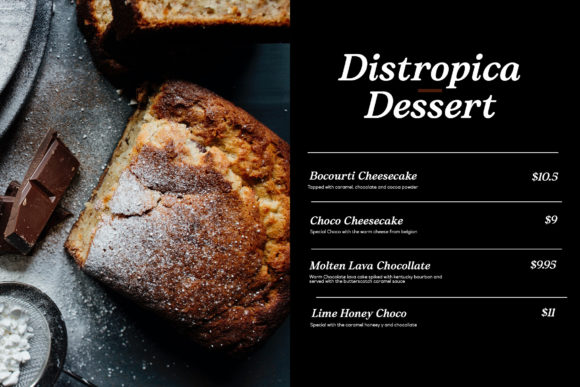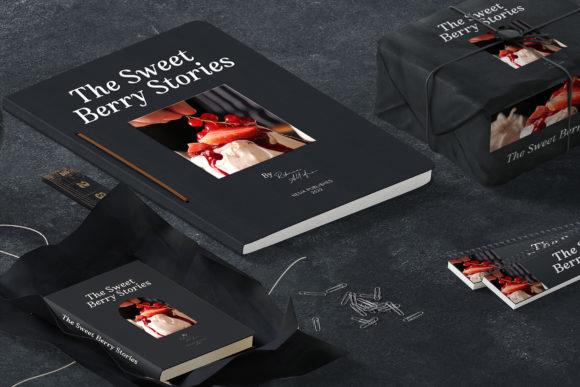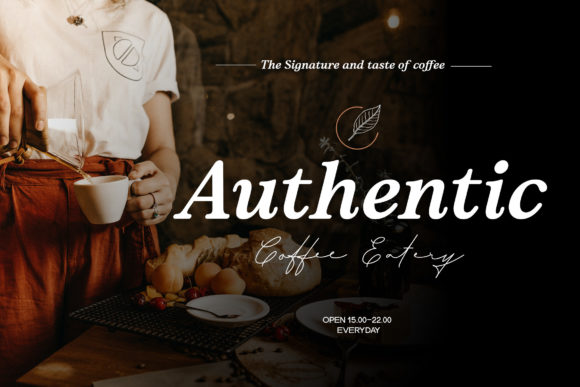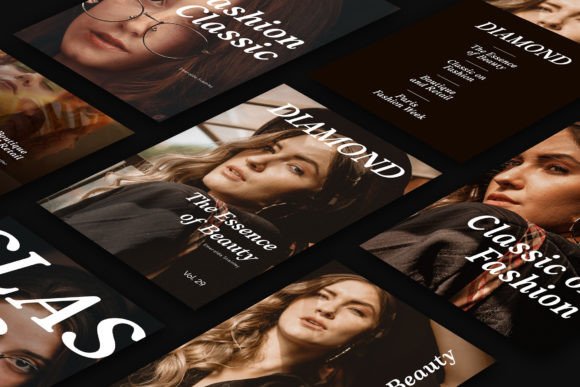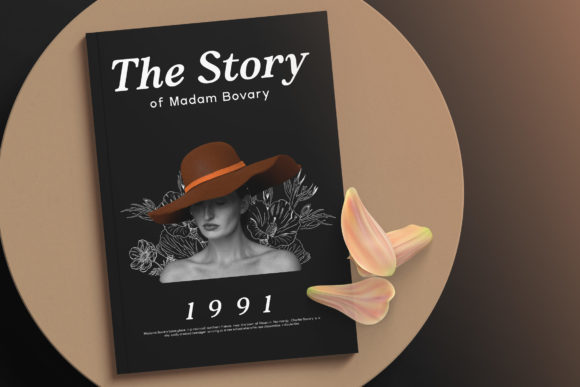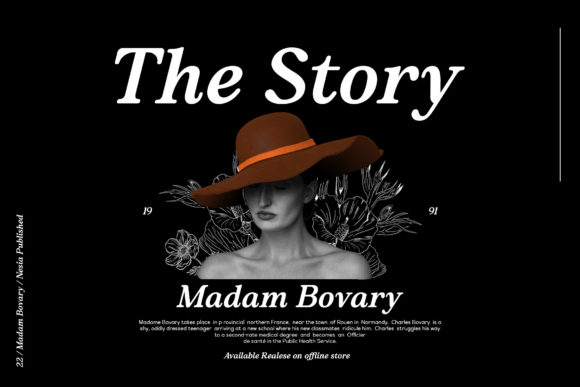
Introduction to Fresh and Coast Font
Fresh and Coast is a cool and stylish serif font.
It is suitable for book texts, documentation, business reports, business correspondence, magazines, newspapers, posters, advertisements, multimedia, and corporate design .